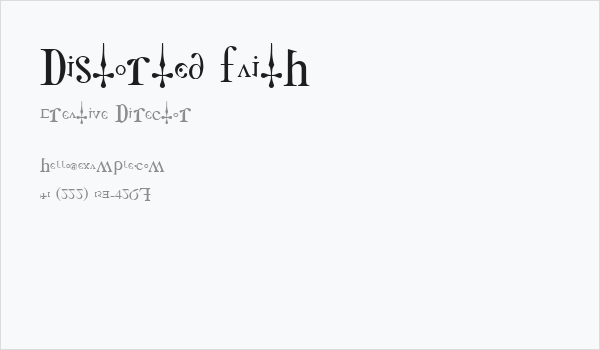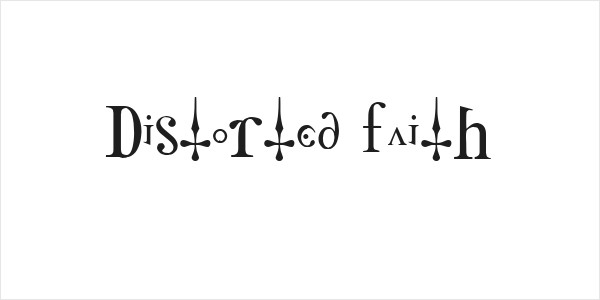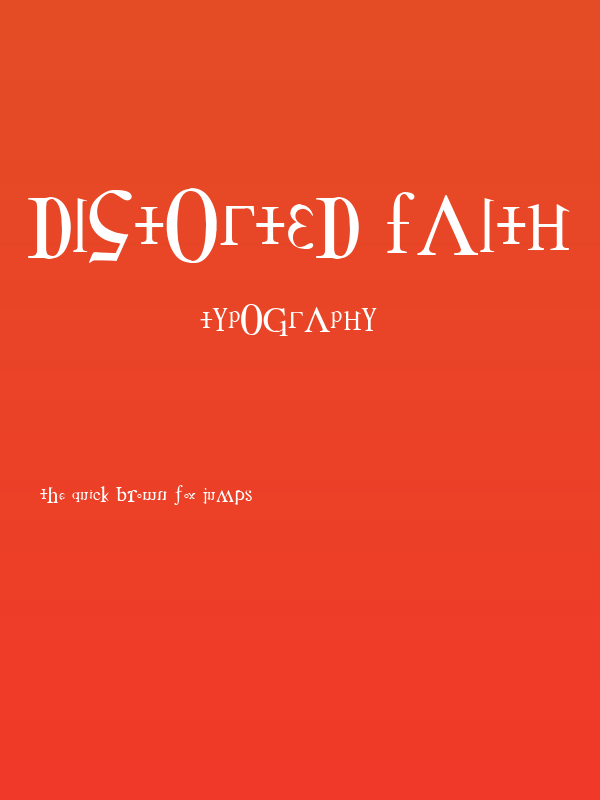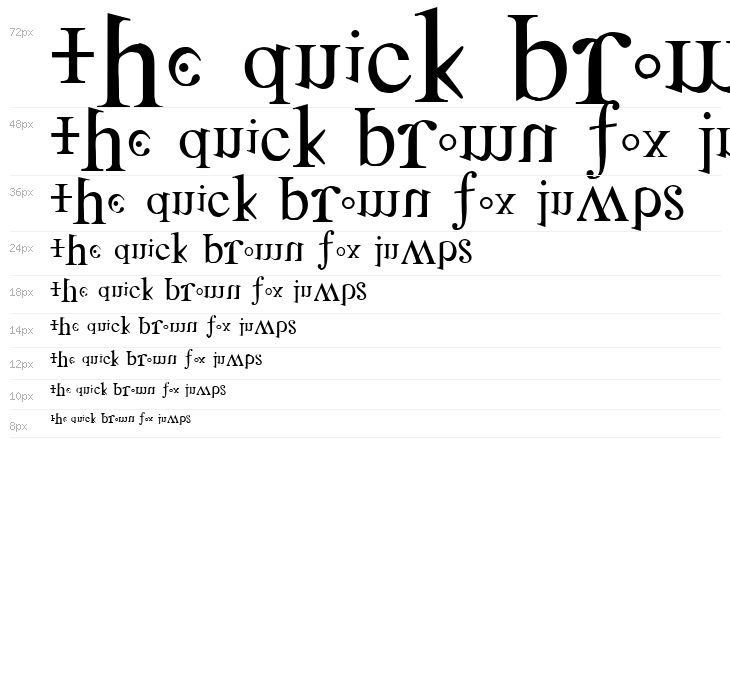
Distorted Faith Font
Distorted Faith Description
This font features a unique and artistic design with a blend of sharp angles and smooth curves, creating a visually striking appearance. The uppercase letters are bold and prominent, while the lowercase letters maintain a consistent style with distinctive flourishes. Numbers and special characters are crafted with the same artistic flair, adding to the font's overall cohesive look. The font's design is reminiscent of medieval or gothic styles, with a modern twist that makes it suitable for contemporary use. Its high contrast between thick and thin strokes enhances readability while maintaining its decorative appeal.
| Overall Style | Modern Gothic |
| Proposed Projects | Ideal for projects requiring a dramatic and artistic touch, such as book covers, posters, branding, and logos. |